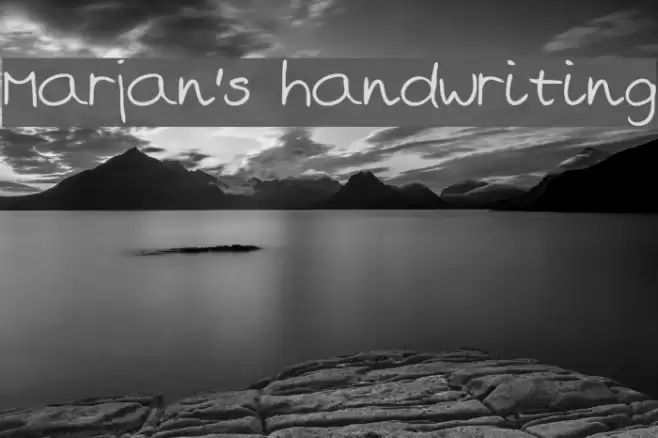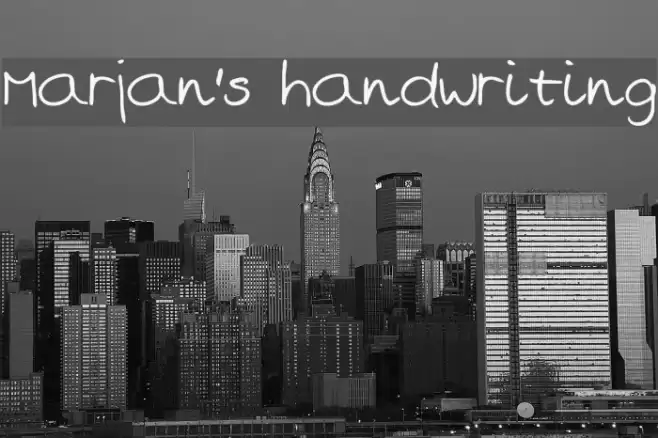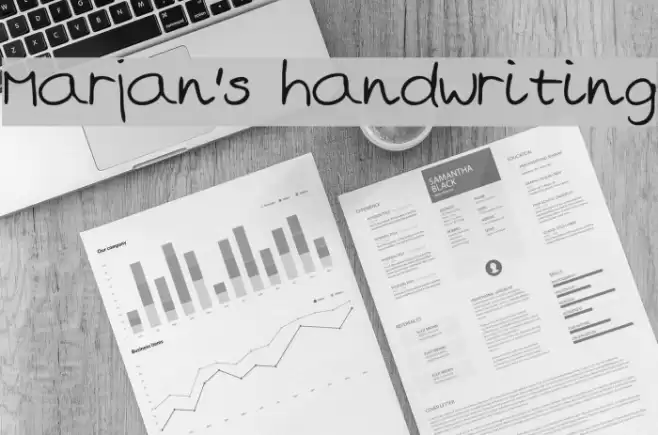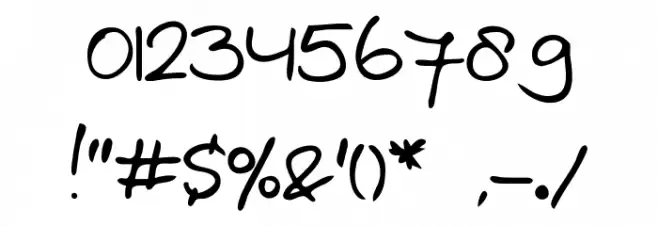
Marjan's handwriting Font
Marjan's handwriting Description
This font exudes a casual and personal touch, reminiscent of natural handwriting. The characters are slightly irregular, adding a human element to the text. The strokes are smooth and fluid, with a consistent medium weight throughout. The letters are well-spaced, providing a clear and legible appearance. This style is perfect for projects that require a personal or informal tone, such as invitations, greeting cards, or personal branding. The font maintains a balance between readability and artistic flair, making it versatile for various design needs.
A casual, handwritten-style font with smooth, fluid strokes from Handwritten fonts.
- Proposed Projects: Ideal for invitations, greeting cards, personal branding, and informal communications.
- Overall Style: Casual
- Use Case: Headlines, Personal projects, Informal text